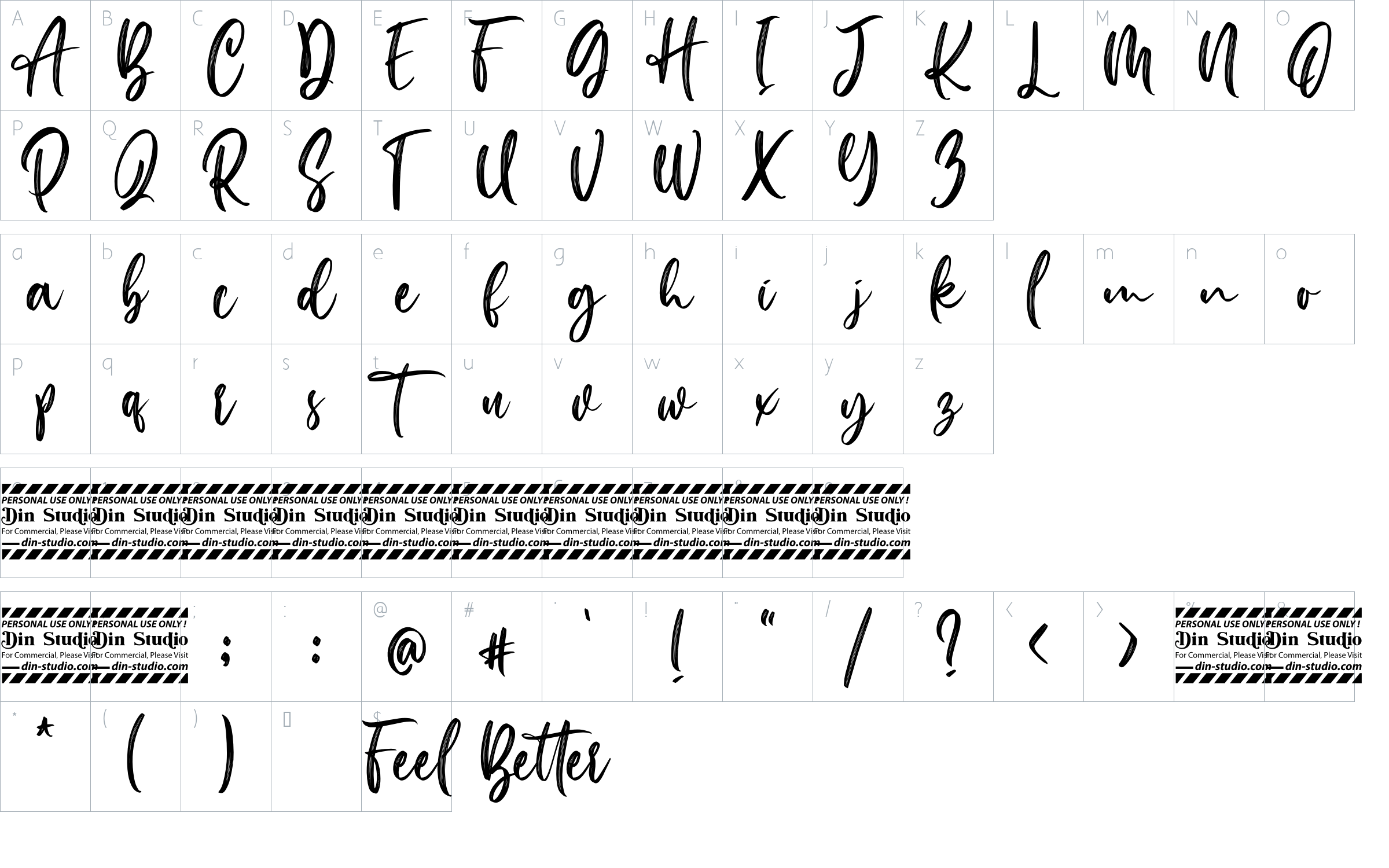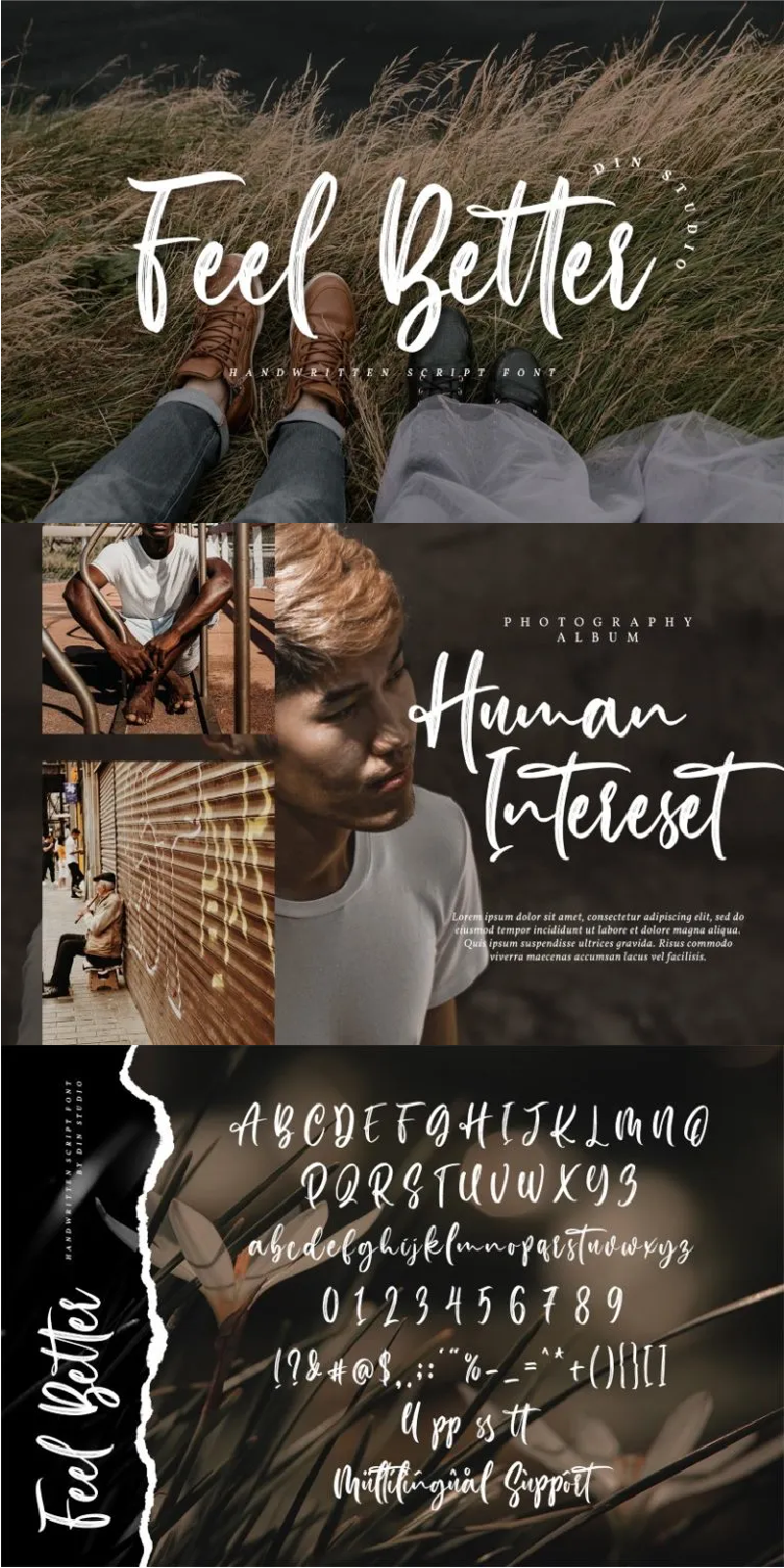
Feel Better Font
About Feel Better
Feel Better is an elegant handwritten font. The handwritten combined with brush font will make your design project more beautiful. Made for any professional project branding. It is the best for logos, branding and quotes. See the previews above to get some inspiration on how you can use them. Happy Designing!
– Beautiful Ligatures